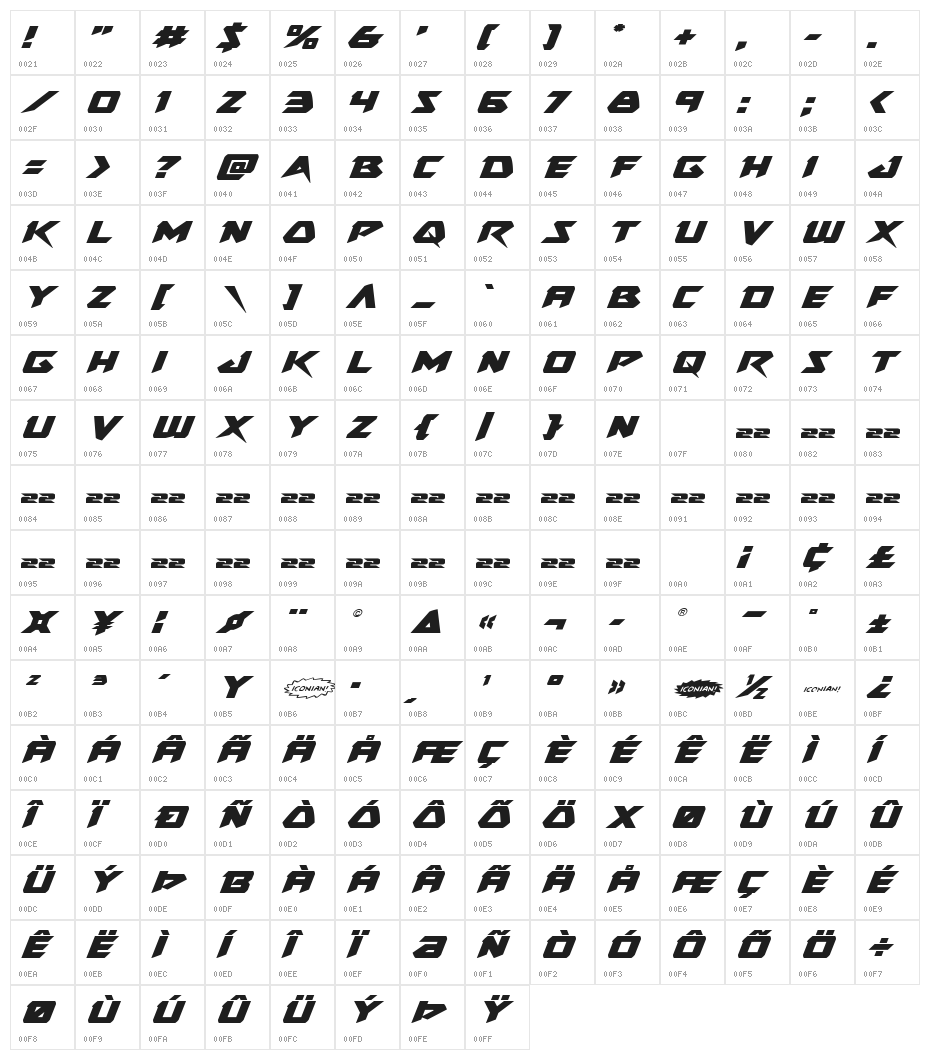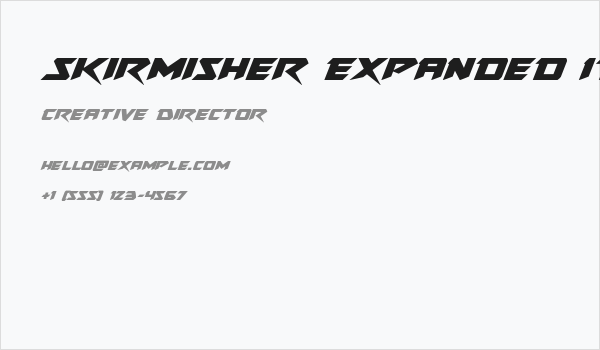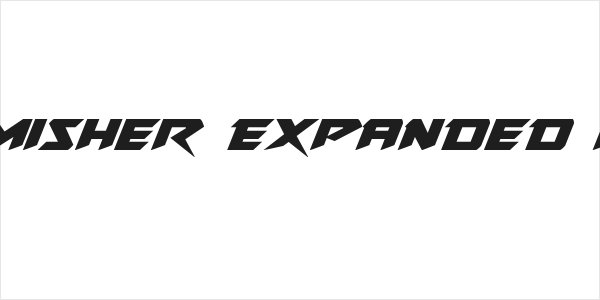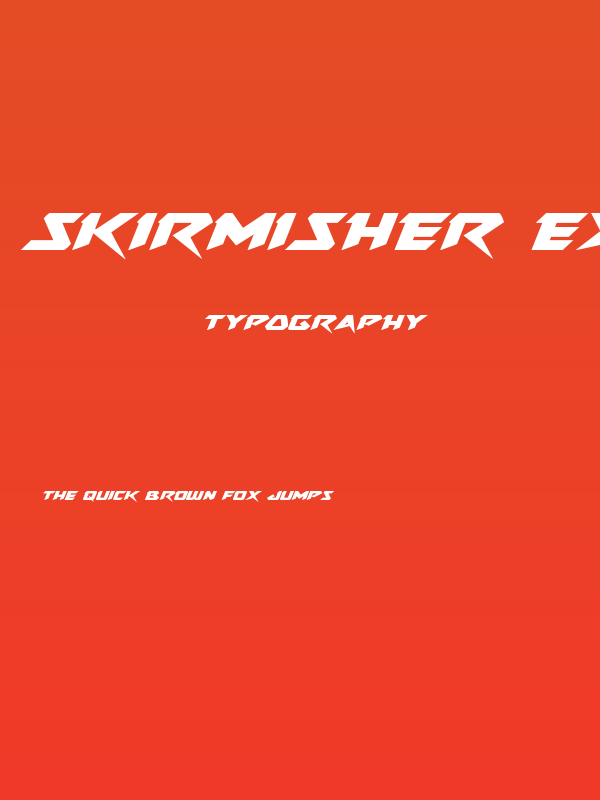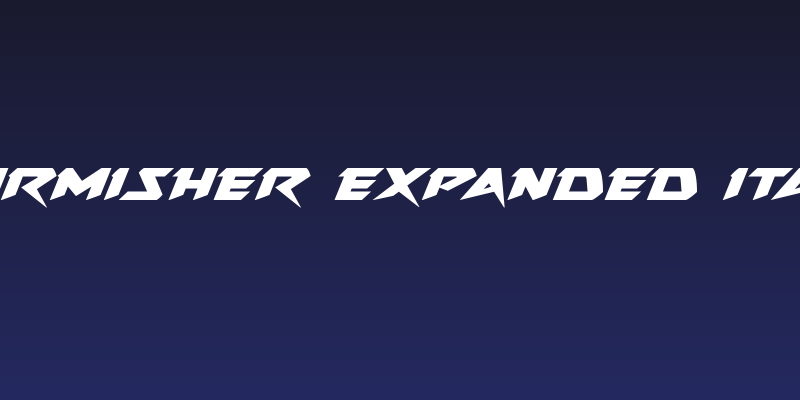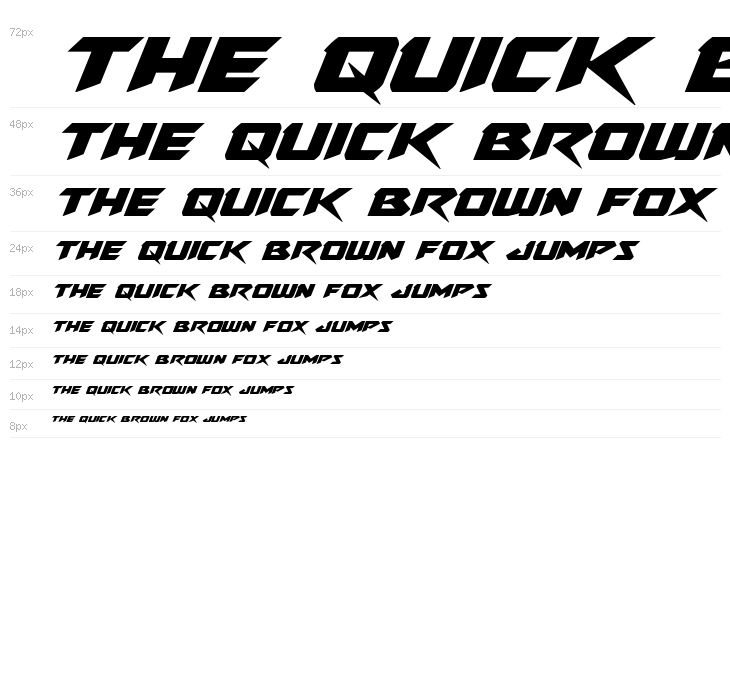
Skirmisher Expanded Italic Font
Skirmisher Expanded Italic Description
This font features a bold and aggressive design with sharp, angular edges and a futuristic flair. The characters are italicized, giving a sense of motion and speed. The expanded width of the letters adds a commanding presence, making it ideal for impactful headlines or branding that demands attention. The uppercase and lowercase letters maintain a consistent style, with numbers and special characters following the same dynamic aesthetic. The overall look is modern and edgy, suitable for projects that require a strong visual statement.
| Proposed Projects | Perfect for sports branding, video game titles, action movie posters, or any project needing a dynamic and bold typeface. |